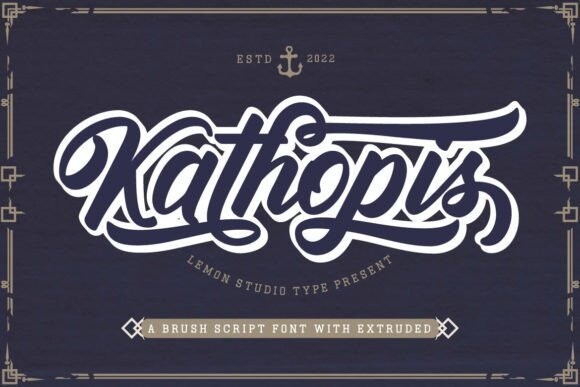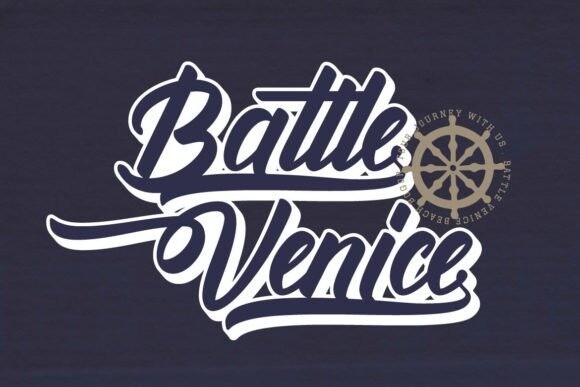
Kathopis Font
Kathopis is a powerful brush script font inspired by a vintage style and combined with modern nuances.
Kathopis is great for creating logotypes, branding, promotional ads, quote designs, mockup designs, posters, merchandise, social media, and more. Use it as much as you want!